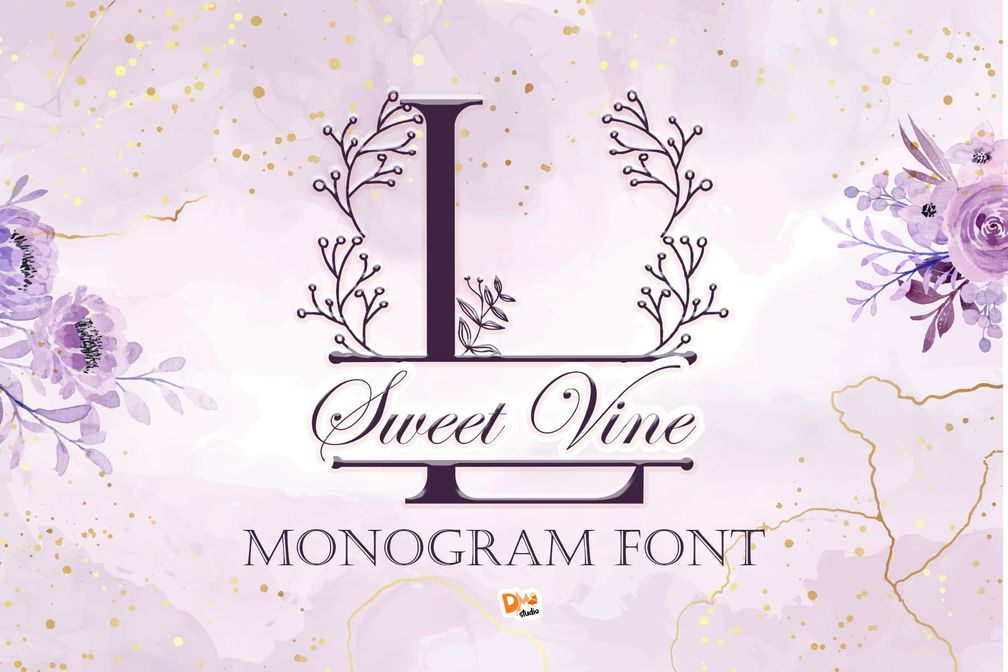
Sweet Vine Monogram Font
Sweet Vine Monogram Font is an elegant and intricate typeface designed to add a touch of sophistication and beauty to your monogram projects. With its graceful vine elements and detailed design, this font is perfect for wedding invitations, luxury branding, personal stationery, and decorative designs. Elevate your creations with the refined and classic charm of the Sweet Vine Monogram Font.
1. Elegant and Intricate Design: The Sweet Vine Monogram Font features graceful vine elements and intricate details that add a touch of sophistication and beauty to your monograms.
2. Versatile Application: Ideal for wedding invitations, luxury branding, personal stationery, and decorative designs, bringing a refined and classic charm to your projects.